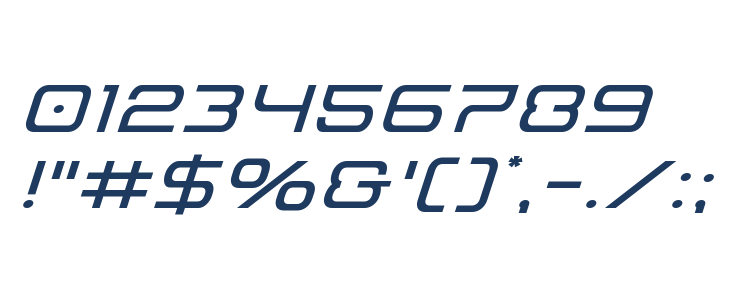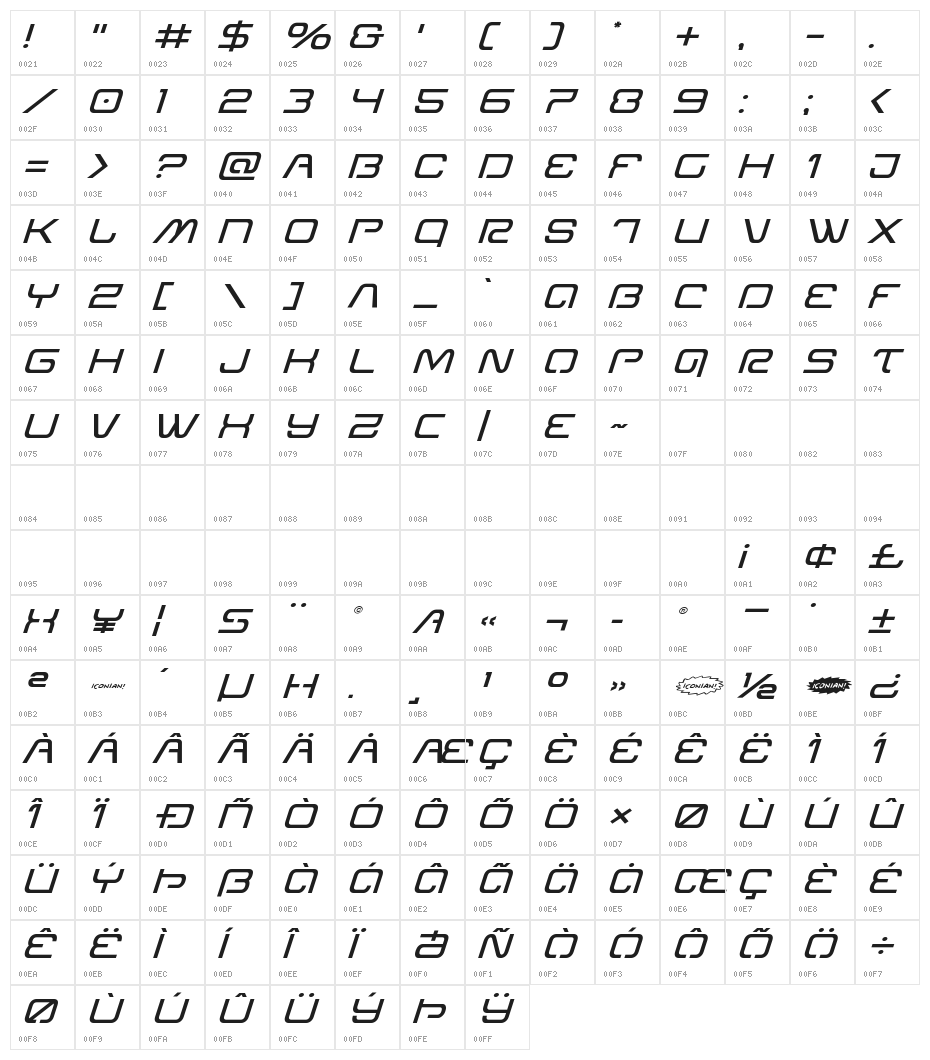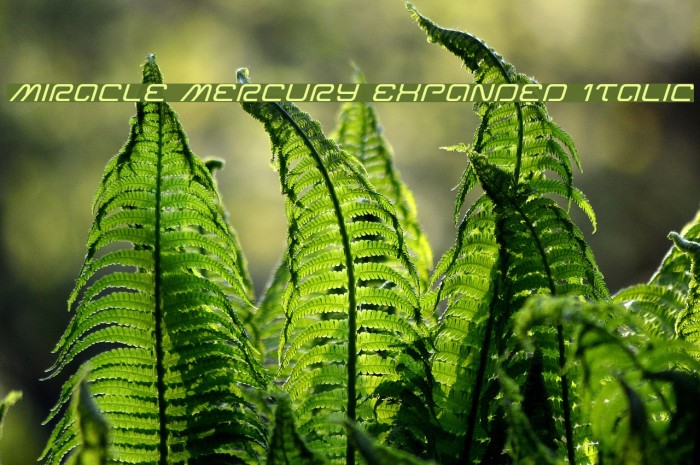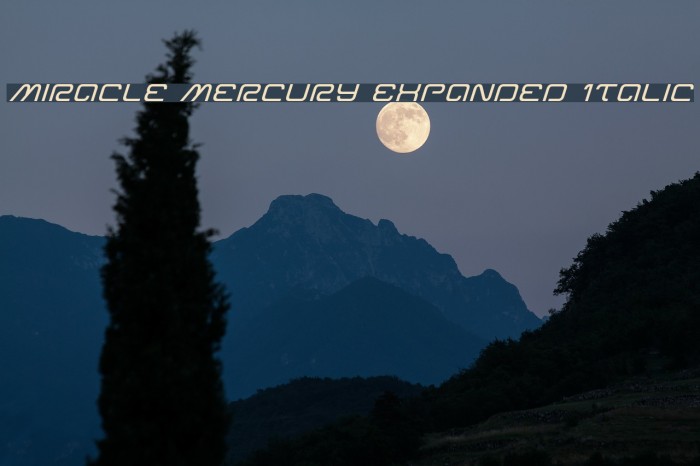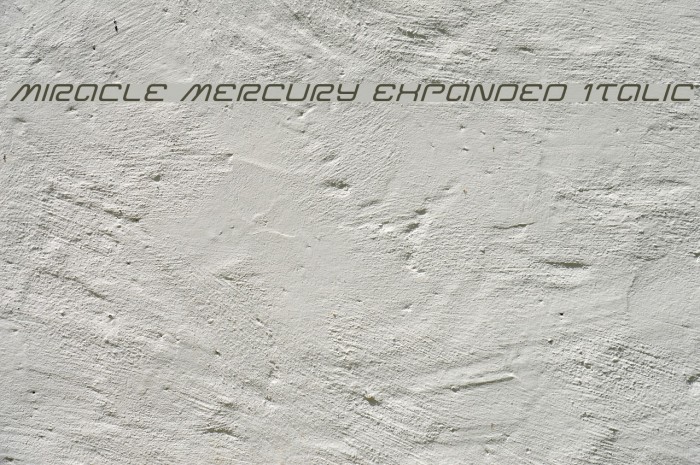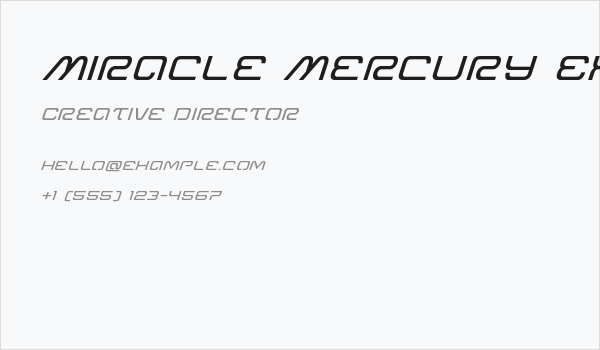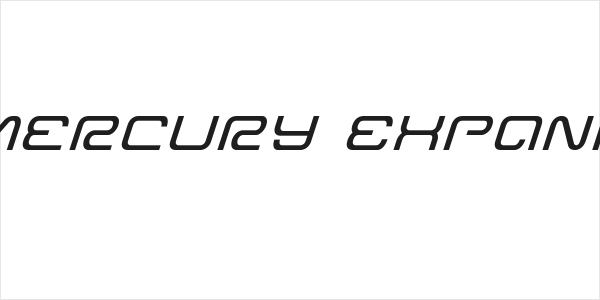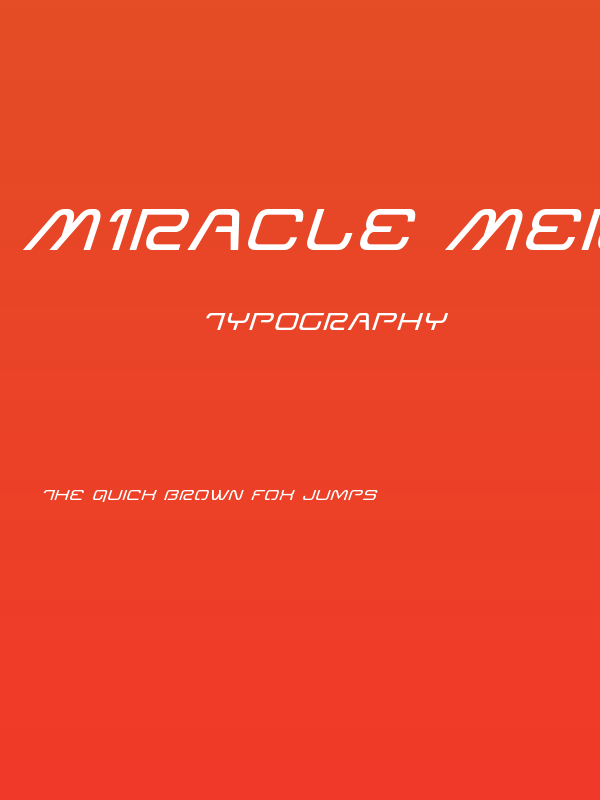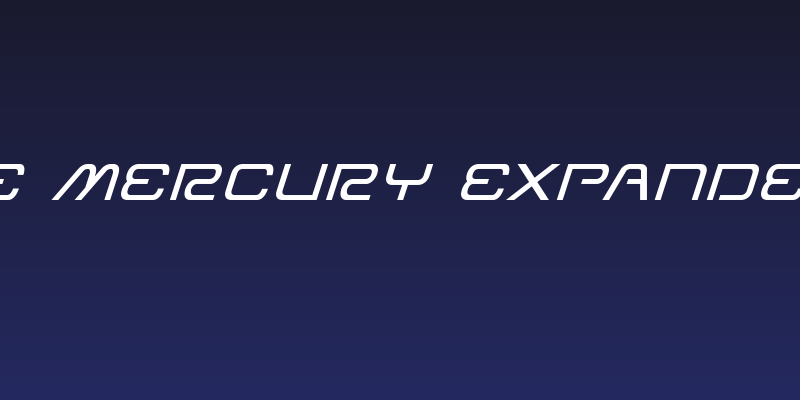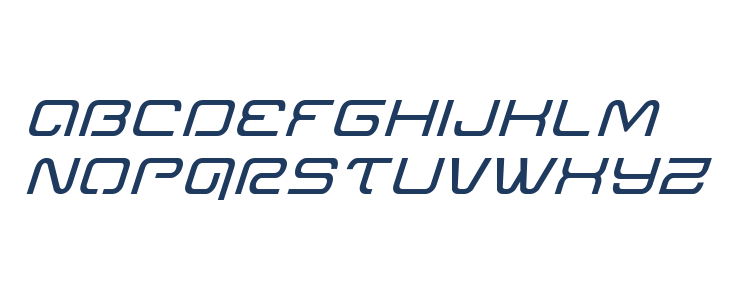
Miracle Mercury Expanded Italic Font
Miracle Mercury Expanded Italic Description
This font features a sleek, modern design with an expanded and italicized style. The characters are elongated, giving a sense of motion and speed. The strokes are consistent in weight, providing a uniform appearance across all characters. The rounded edges and smooth curves contribute to a futuristic and dynamic look. The spacing between characters is slightly wide, enhancing readability while maintaining a stylish aesthetic. This font is suitable for projects that require a contemporary and energetic feel.
Use CaseLogos, Headlines
Proposed ProjectsIdeal for branding, sports team logos, automotive designs, and tech-related projects.